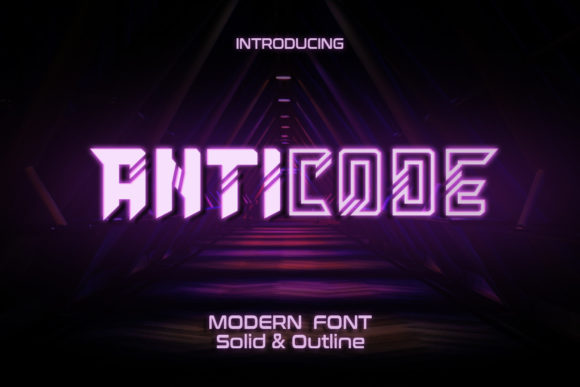
Anticode Font
**Introducing Anticode: The Display Font That Will Make Your Designs Pop!**
Are you ready to upgrade your Instagram game? With Anticode, the coolest display font on the block, you can create eye-catching designs that will make your followers do a double-take.
**Bold, Thick, and Unapologetically Unique**
Anticode is not for the faint of heart. This font is all about making a statement. With its thick, bold letters, it demands attention and commands respect. Whether you're creating logos, web designs, or social media graphics, Anticode will add an instant touch of sophistication and flair.
**Perfect for Web Designs That Wow**
In the digital realm, first impressions matter. Anticode is the perfect font for creating website designs that will leave a lasting impression. Its clear and legible letters ensure that your message will be loud and clear, while its unique style adds a touch of personality that will make your site stand out from the crowd.
**Business Cards That Mean Business**
Your business card is your chance to make a great first impression. With Anticode, you can create business cards that are as unforgettable as they are professional. The bold letters will make your name and contact information stand out, while the unique style will give your card a memorable edge.
** Unleash Your Creativity**
Anticode is more than just a font; it's a tool for unleashing your creativity. Whether you're a seasoned designer or just starting out, Anticode will help you create designs that are as unique as you are. So why settle for ordinary when you can have extraordinary?